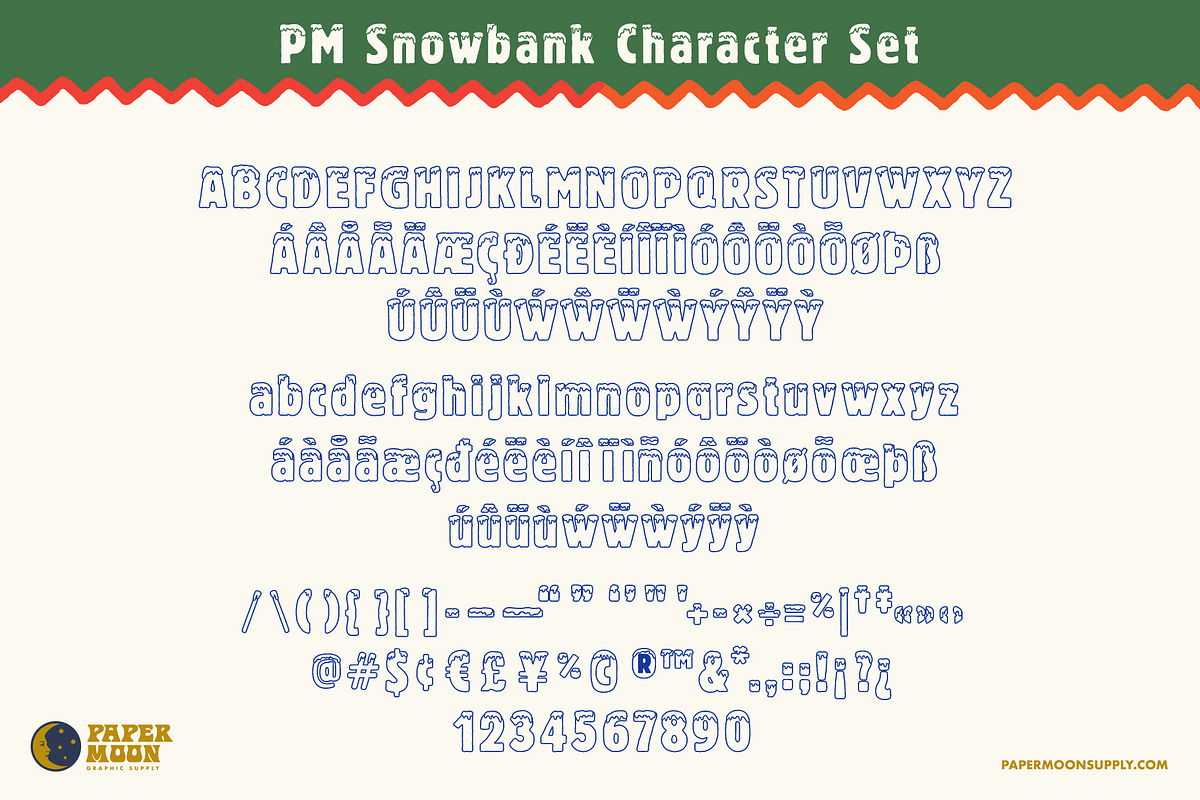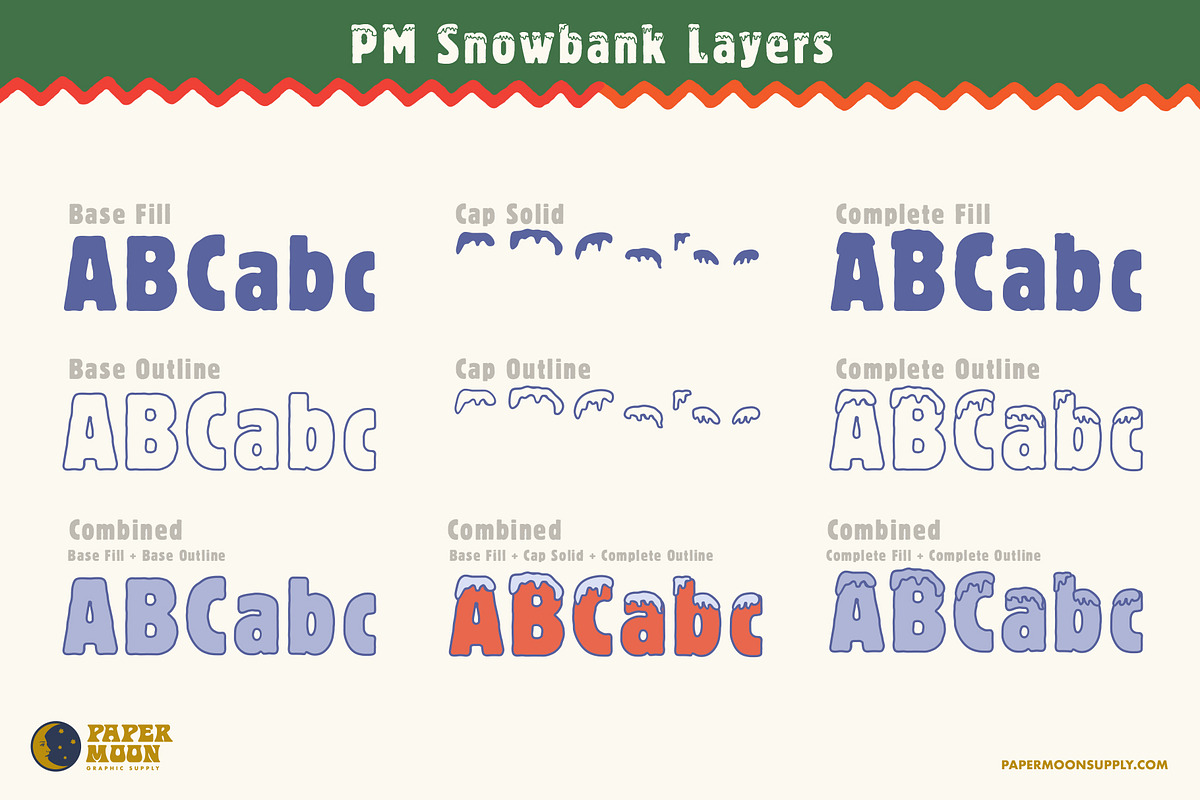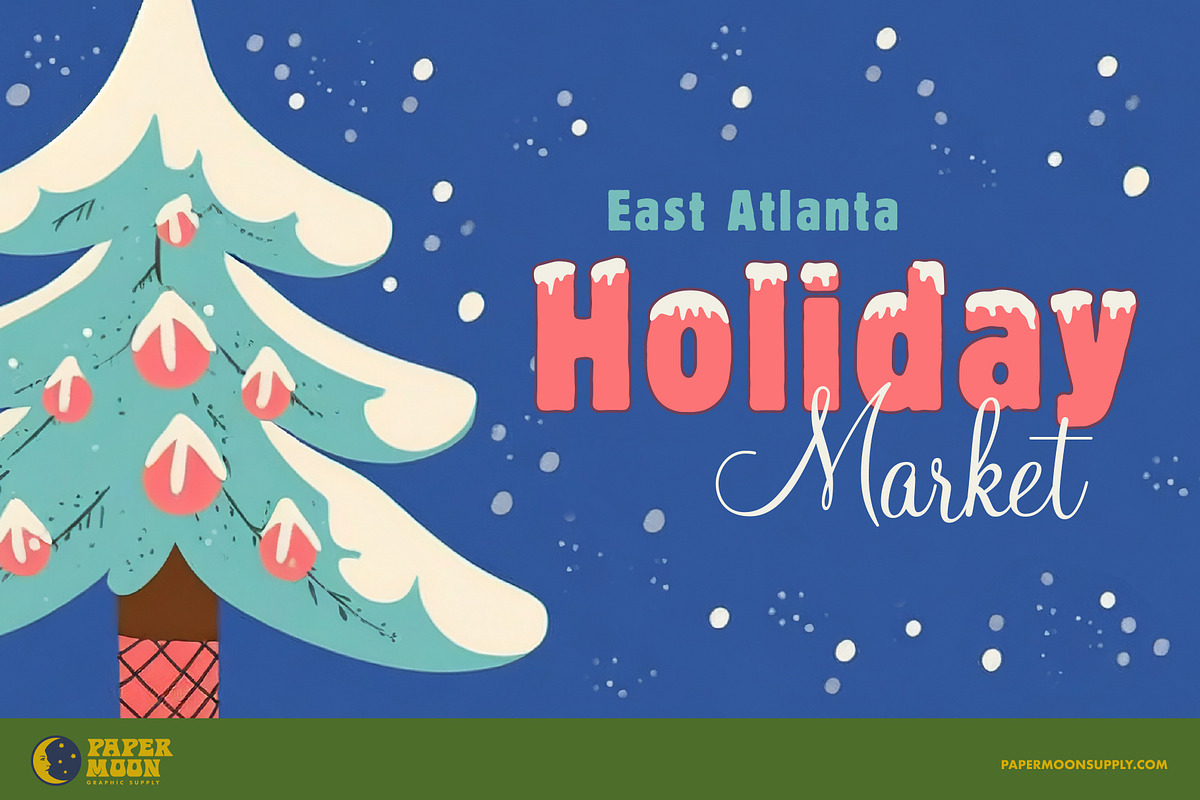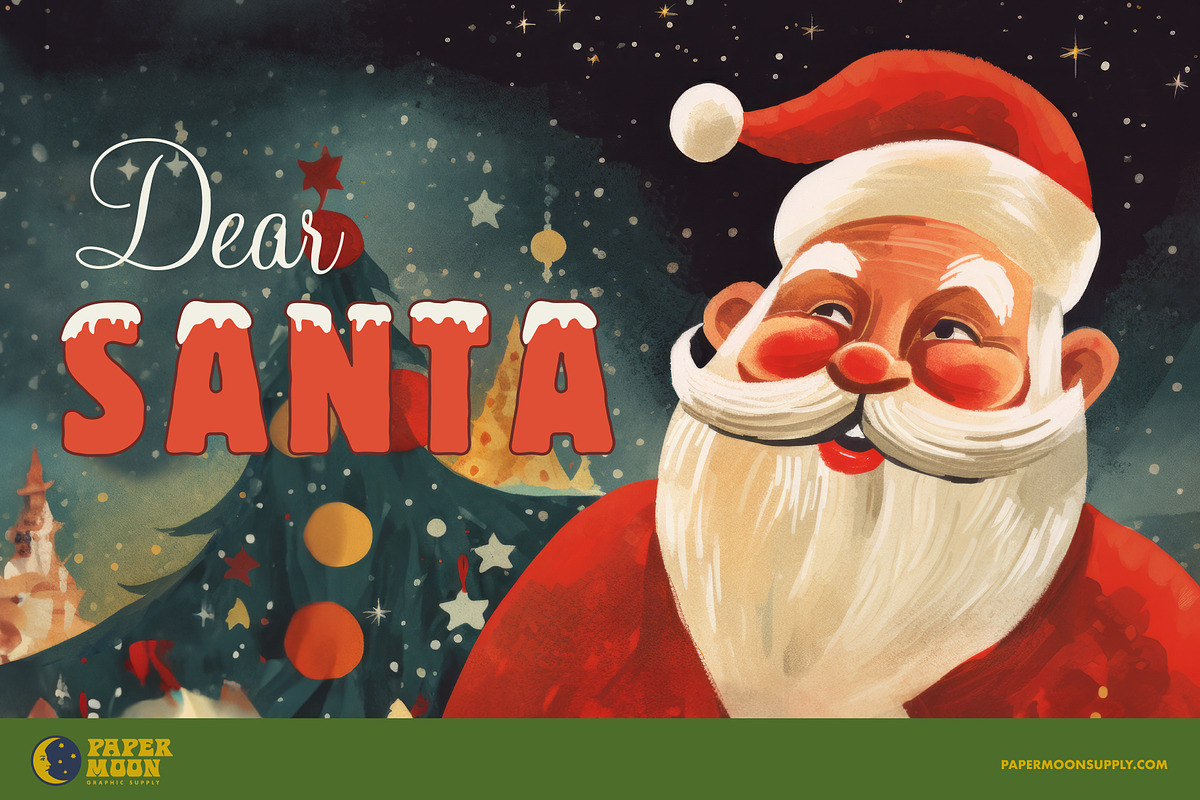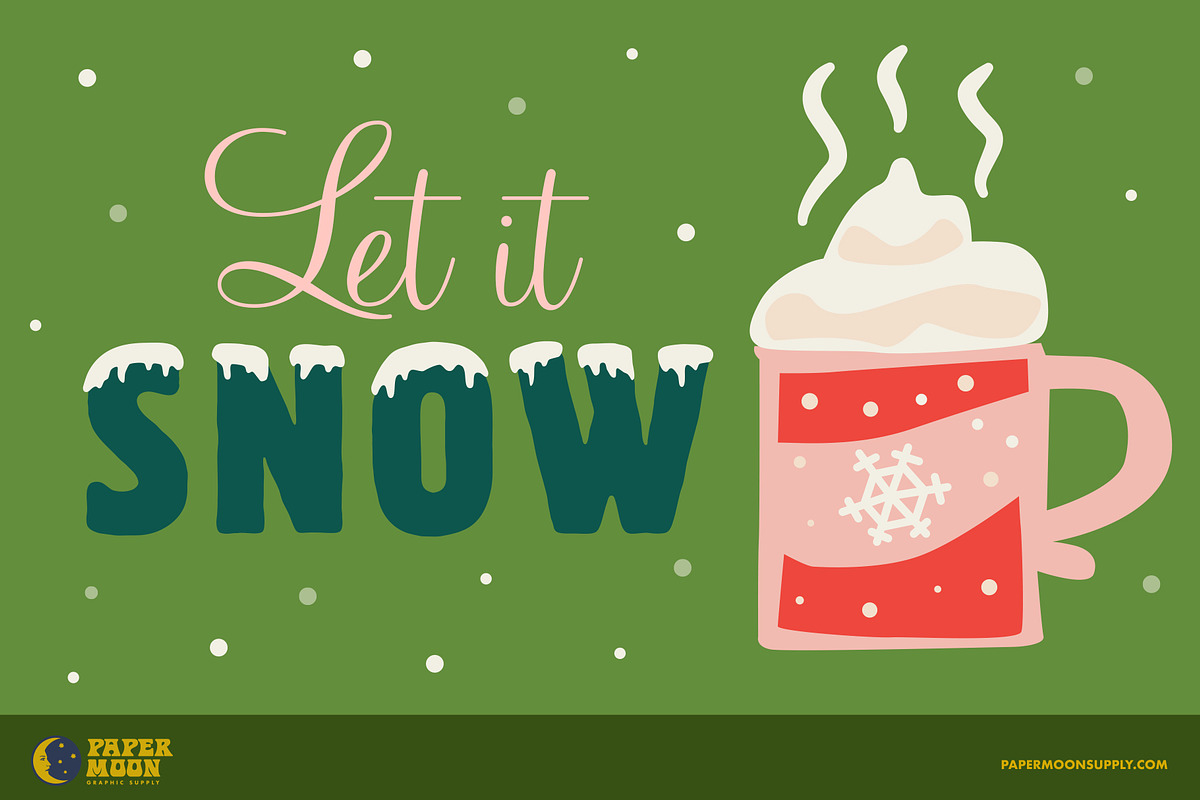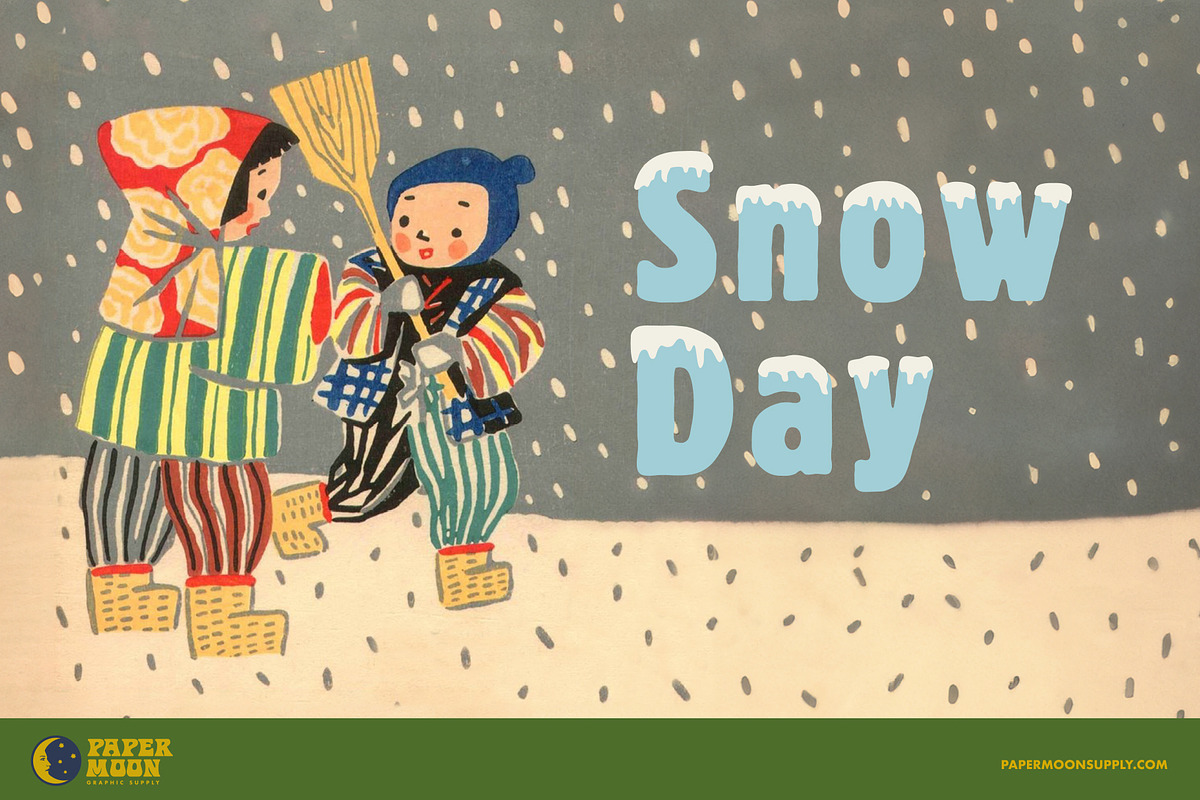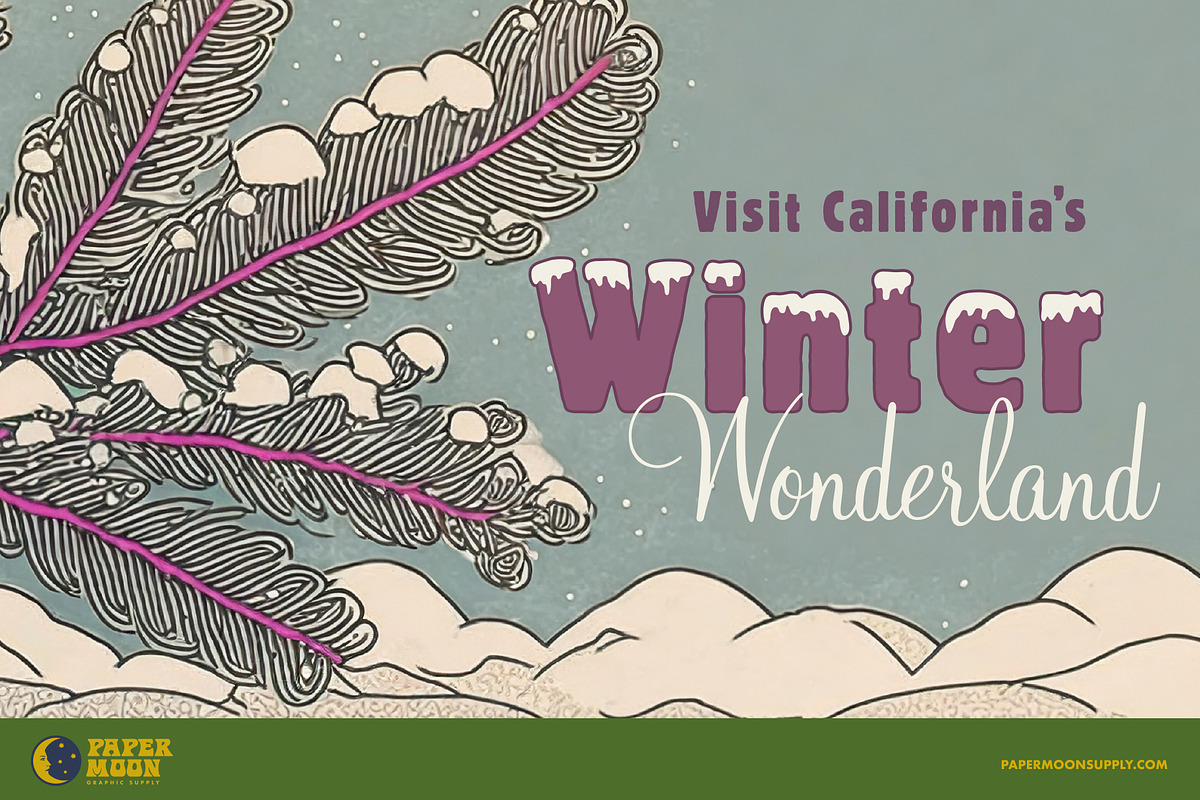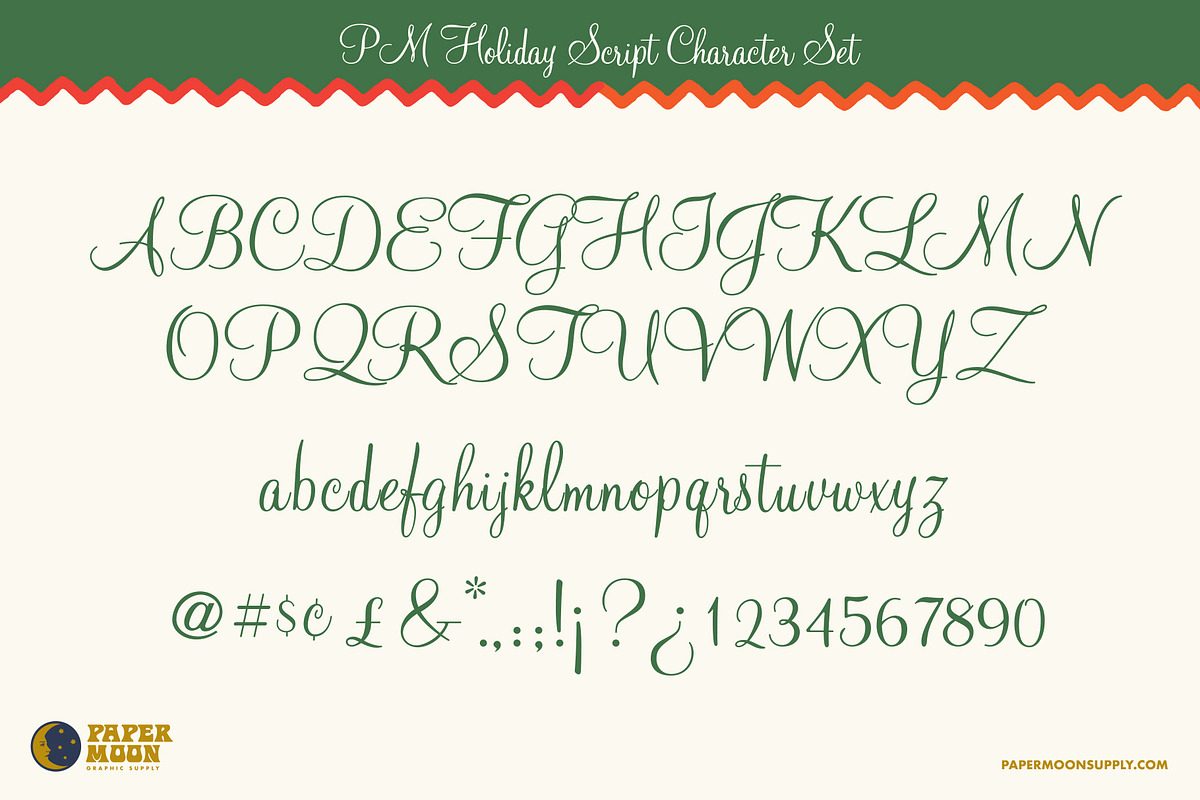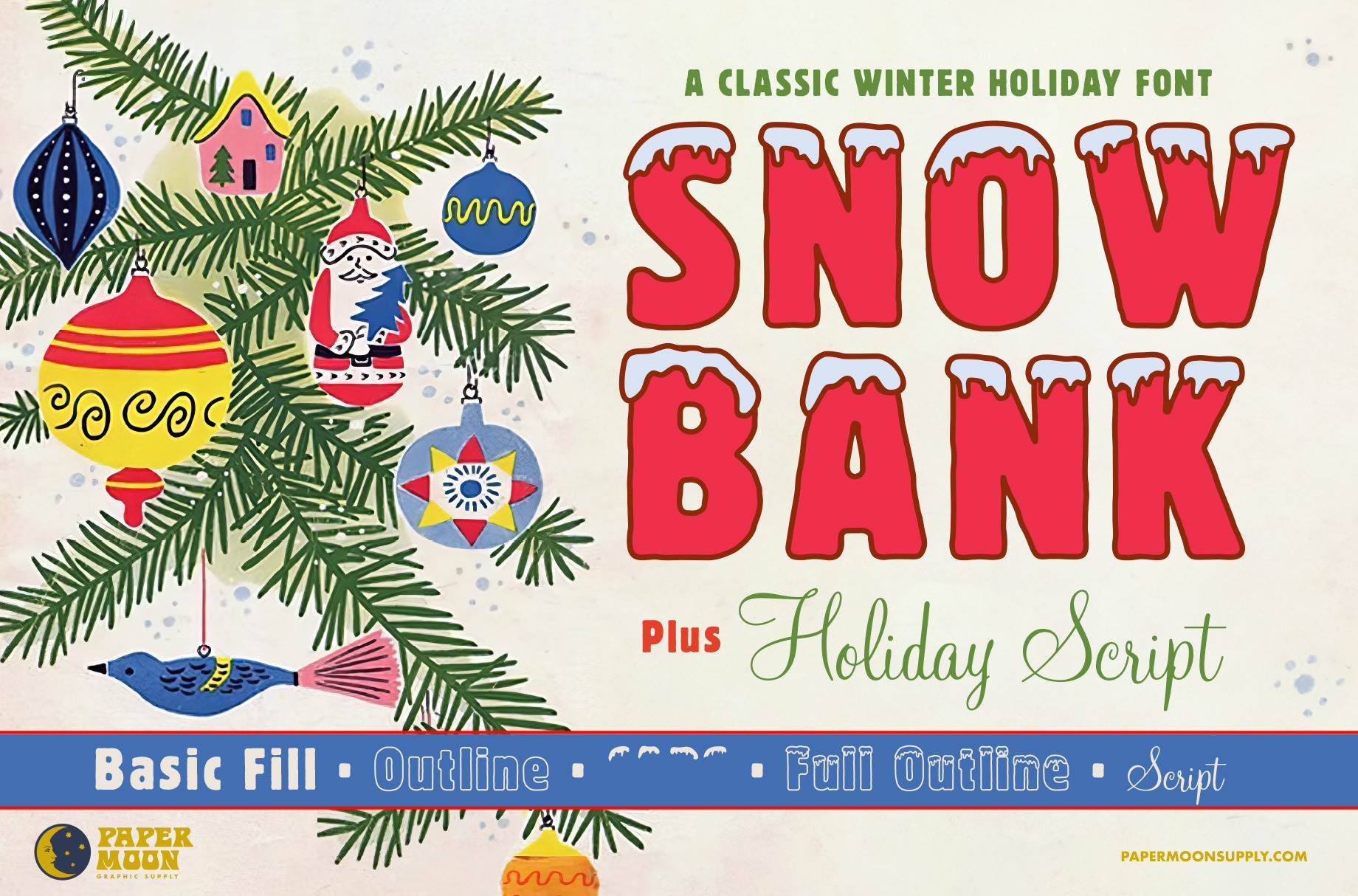
Snowbank Winter Font Duo
Spice up your holiday designs with our two classic Mid-Century winter holiday fonts: Snowbank and Holiday Script.
PM Snowbank is a layered font with both plain and snow covered options.
PM Holiday Script is a classic Mid-Century style script that pairs perfectly with Snowbank.